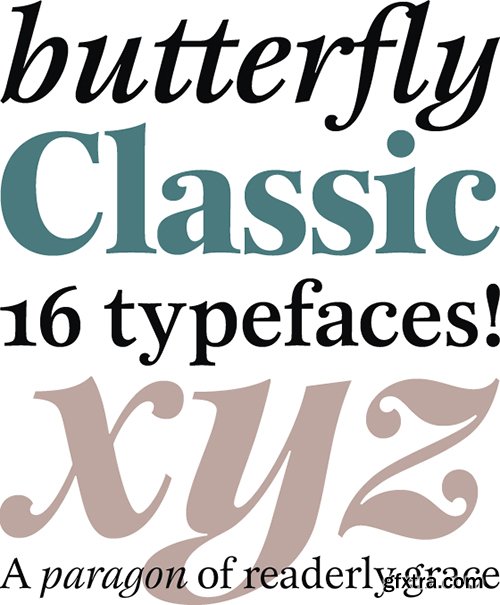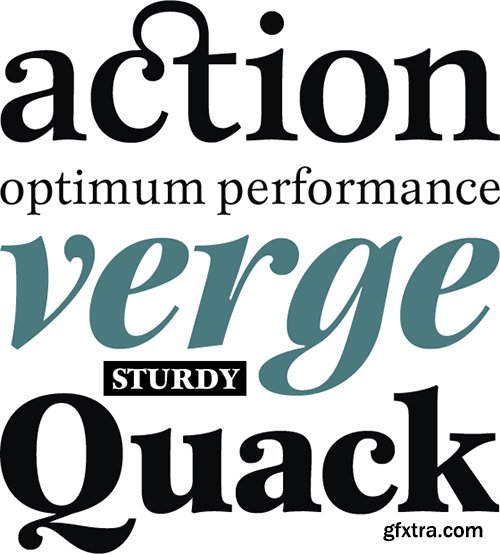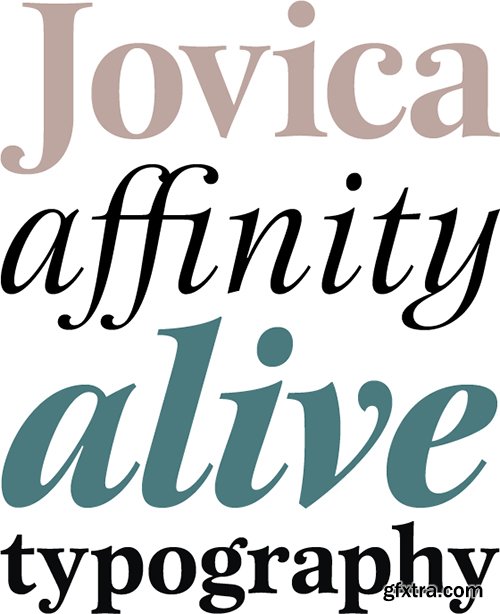
- Originally drawn in 1985, Jovica Veljović had intended to add a few kerning pairs and make some minor refinements to the letterforms. However, his work lead him to take a fresh look at the family. Veljović recalls, … "I soon realized that some characters could benefit by more refined shapes and proportions. By the time I was done, I had worked on just about every character in the original design."
- In fact the end result is two systems: one optimized for extended texts; the other for display settings. The original elegance of the design is not lost, but the new design brings with it letterforms that are altogether more harmonious and balanced. The roman is dynamic and spirited, just oozing character. The italic by contrast is a little more restrained, but nonetheless an elegant and fitting accompaniment. The text-optimized fonts come with a generous x-height, and slightly less contrast; though its marginally wider proportions let in the light, making it very legible even at small sizes.
- ITC New Esprit ® is a versatile family, brought to you in four weights from regular to black. OpenType features like small caps, alternates, and a broad character set make this a welcome addition to everyone's font library. Whether you want elegant and legible text, or dynamic and personable headlines, then you'll want to click through to see more of ITC New Esprit.